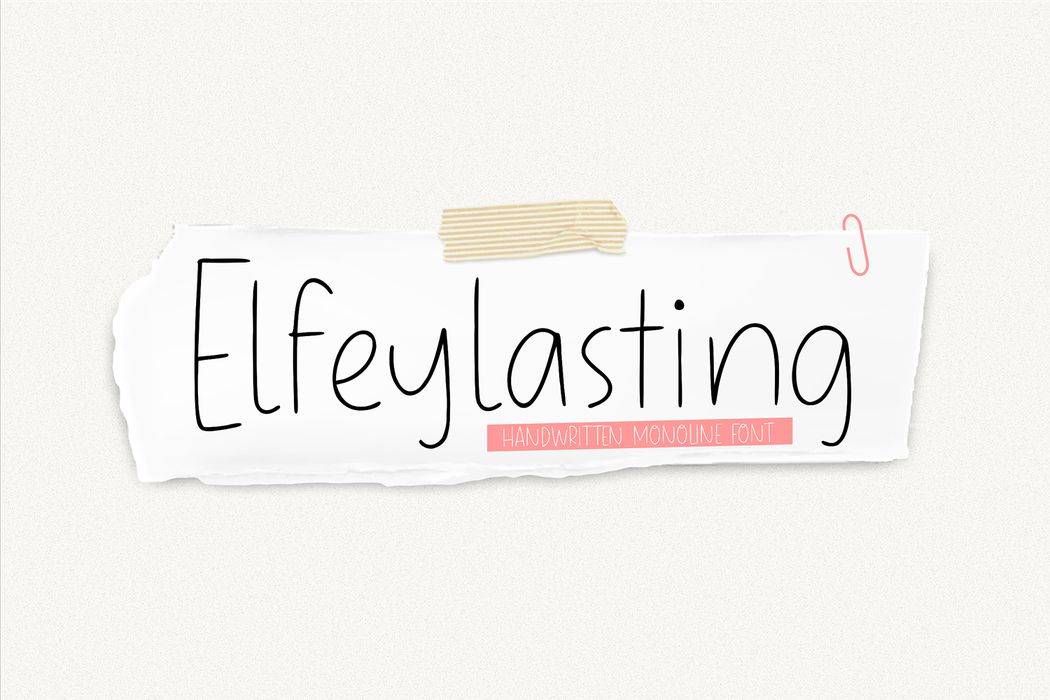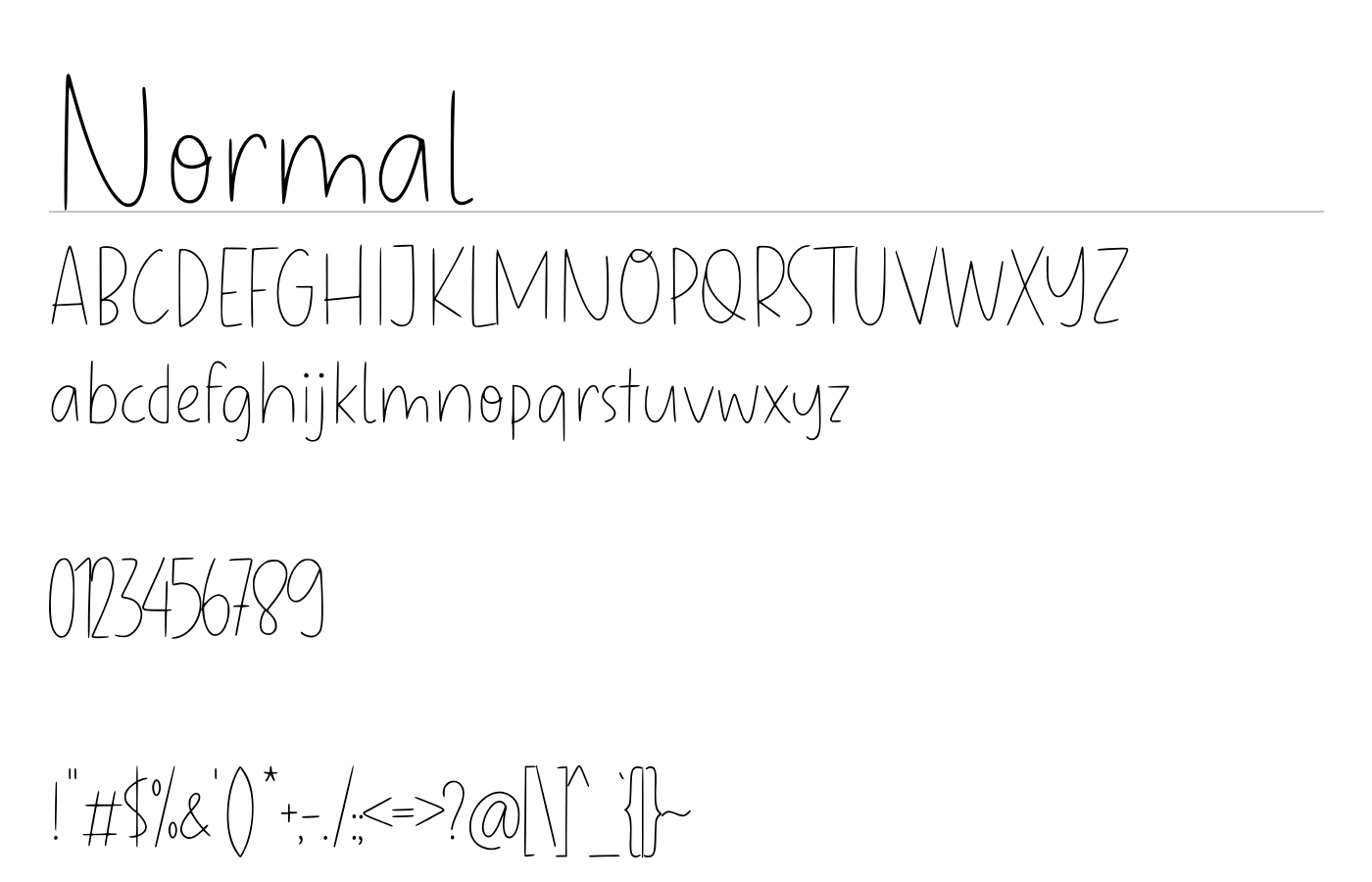
Elfeylasting is a delicate, handwritten sans serif font with a tall, narrow structure and thin, consistent strokes that give it a light, airy feel. Its quirky, slightly irregular letterforms add charm and personality, making it perfect for playful, creative designs like invitations, casual branding, and personal projects. This font works best in large sizes where its whimsical style can shine without losing legibility.
Elfeylasting Font